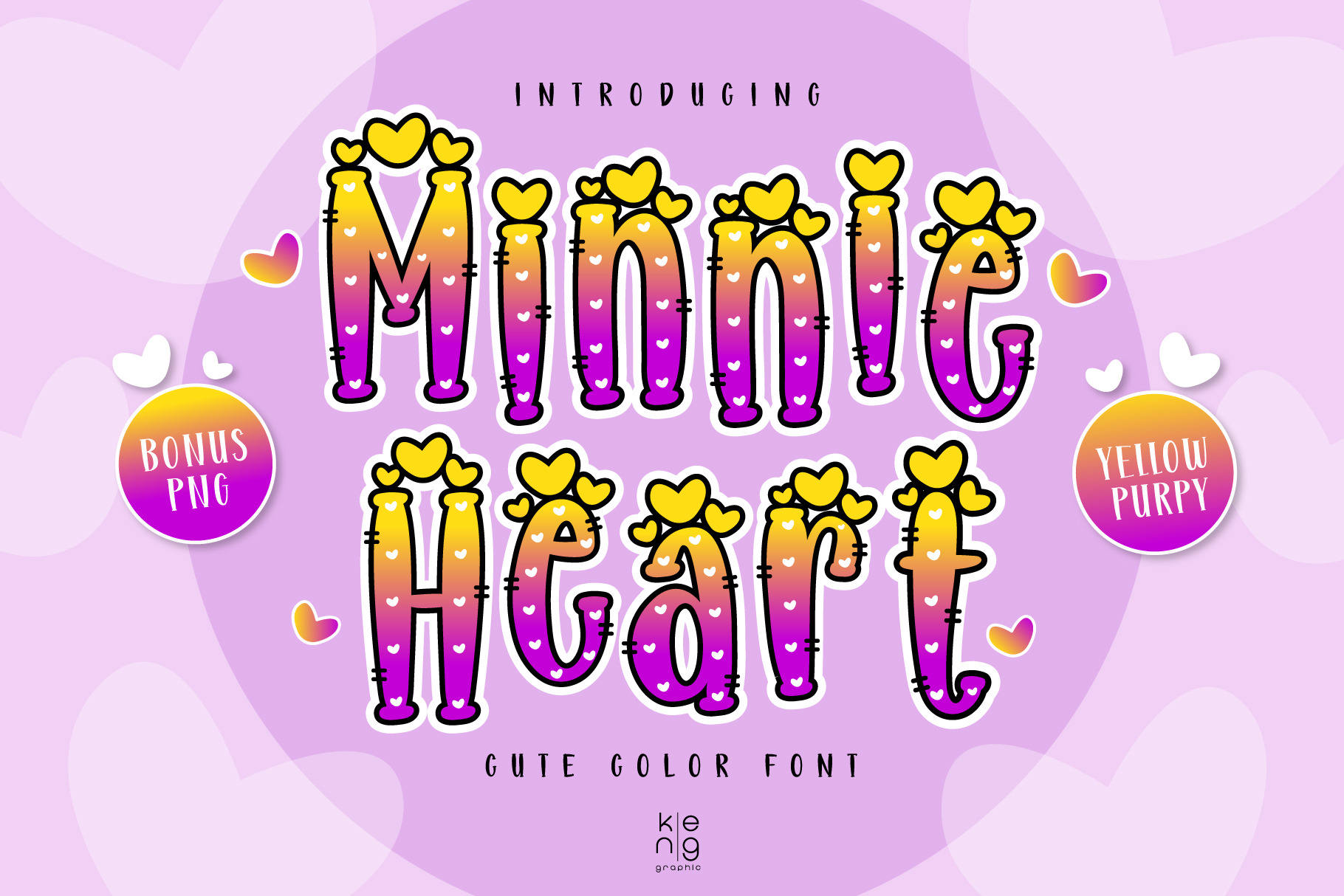
Minnie Heart Y-PP font
Minnie Heart Y-PP is a color font with a cute style and a great punch. Anything written in this font will be instantly recognizable and will grab attention. It will work great for comic book layouts, online games, cards, shirts, hats, bags, mugs, posters, movie titles, and eye-catching social media posts. Or anything that requires youth and courage.